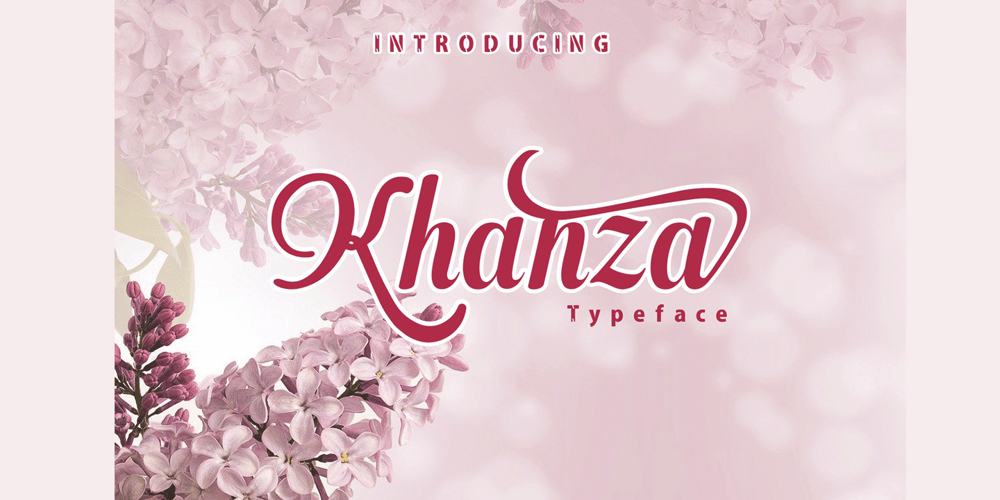
Khanza Script Font Family was designed by Amrullah and published by Suamzu Art. Khanza Script contains 1 styles and family package options. Khanza is a script font that is connected with clear style and dramatic movements. Khanza comes with uppercase, lowercase letters, numbers, punctuation, and so many variations on each character including alternative opentypes, common binders, and also additional cuts to allow you to customize your design. Perfect for use for Logotype, Letterhead, Posters, Clothing Designs, Labels and others. khanza font will help all the design projects that you are working onKhaza script features:Uppercase & lowercaseAlternates & swashesLigaturesStandart international charactersPunctuation & symbols